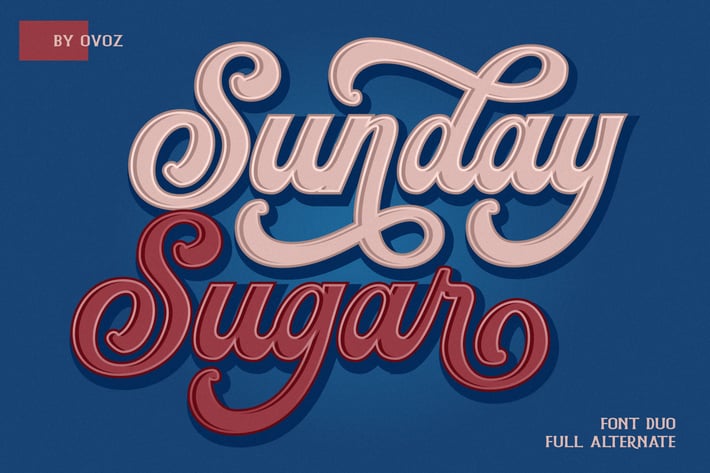
Sunday Sugar Script Font
Sunday Sugar Script font, is our new item that suitable for your team logo, or community logo.
Great for
Logo, Sticker, Jersey, Invitation Card, Brochure, etc.